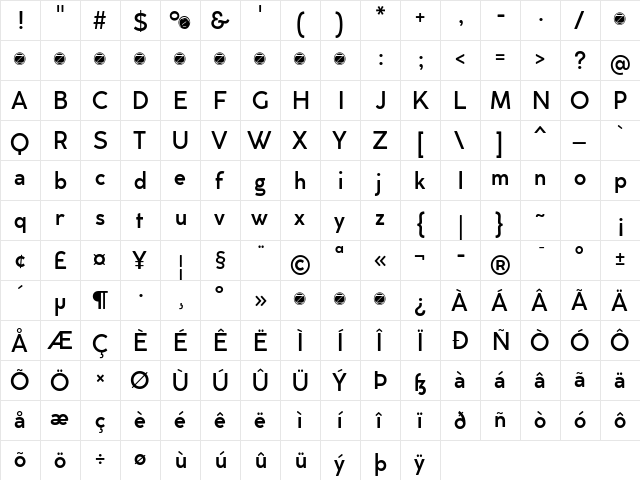
Cocogoose Classic Trial Medium
| Foundry | Zetafonts |
| Designer | Cosimo Lorenzo Pancini, Francesco Canovaro |
Design Context for Cocogoose Classic Trial Typeface
Cocogoose Classic Trial wears its vintage influences proudly, with letterforms that recall mid-century signage, classic packaging, and nostalgia-driven design.